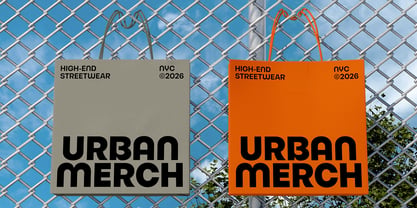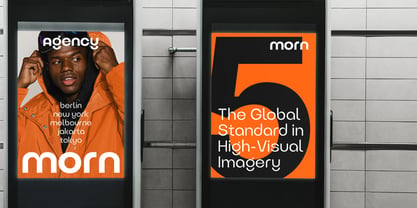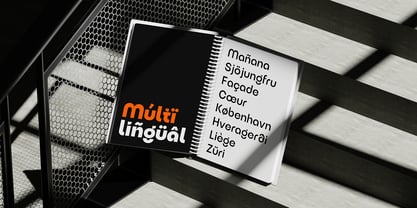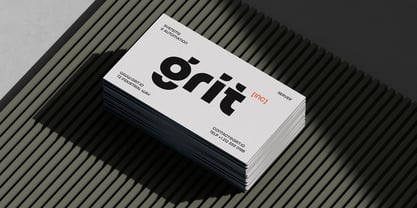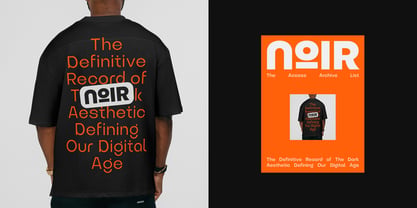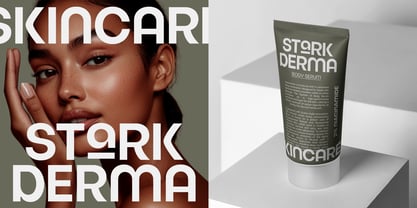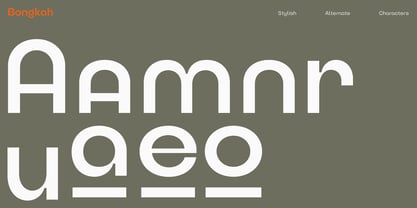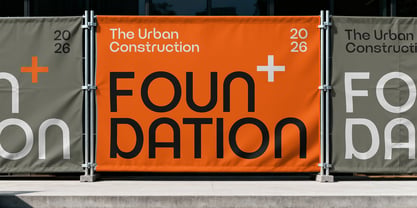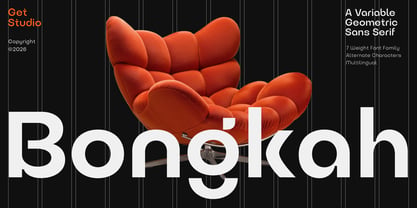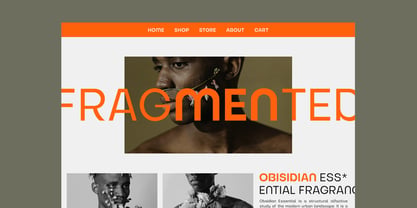
Bongkah
by Get Studio
The Bongkah Font Family was designed by Hermansyah and published by Get Studio. Bongkah contains 8 styles and family package options. More about this family
Bongkah is a refined geometric sans serif designed with clarity and quiet confidence. Built on precise forms and balanced proportions, it delivers a modern presence while remaining effortlessly readable. The family includes 7 carefully crafted styles, from Thin to Bold, along with full variable font support for seamless flexibility across digital and print applications. Alternate characters and multilingual support expand its versatility, making Bongkah ideal for branding, editorial layouts, identity systems, and contemporary design projects. Clean, confident, and elegantly structured — Bongkah is designed to stand with distinction.
Designers: Hermansyah
Foundry: Get Studio